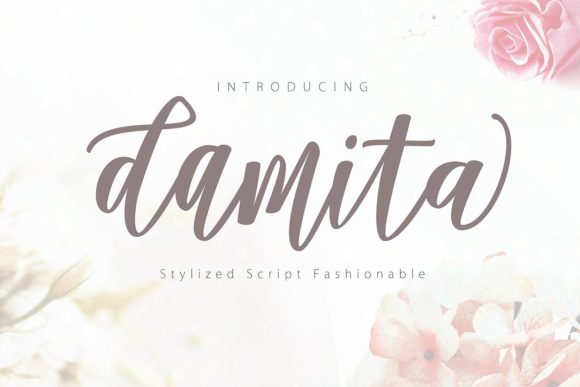
Damita Script: The Modern Script Font for Creative Brands
Bridging Elegance and Contemporary Style
Finding a typeface that balances artistic flair with professional utility is a common challenge in modern typography. Too often, script fonts lean too heavily into vintage nostalgia or feel too casual for serious brand identity work. Damita Script enters the conversation as a distinct solution. It is a premium font that captures the fluidity of handwriting while maintaining a uniform baseline and consistent weight. This is not your grandmother’s calligraphy; it is a contemporary display font designed to feel fresh, relevant, and versatile. The visual personality of Damita Script is defined by its smooth curves and balanced kerning, allowing it to stand out without overwhelming the viewer.
For designers and entrepreneurs, the appeal lies in its adaptability. Whether you are working on a high-end logo design or a quick social media graphic, this typeface provides a cohesive look. It bridges the gap between the warmth of a handwritten font and the structure required for commercial typography. When you look at the letterforms, you see a deliberate effort to avoid the chaotic baseline often found in rustic fonts. Instead, Damita offers a polished aesthetic that speaks to quality and attention to detail.
Where Damita Script Excels
Understanding where a creative font fits into your workflow is just as important as the design itself. Damita Script is particularly effective in projects where emotional connection and brand perception are key. Here are some practical applications where this typeface shines:
- Packaging Design: For products aiming for a boutique or artisanal feel, such as cosmetics, specialty foods, or handmade goods, Damita Script adds an immediate touch of sophistication. It suggests that the product inside is crafted with care.
- Wedding Stationery and Invitations: The artistic feel of the font makes it ideal for event invitations. It communicates elegance without being stuffy, making it perfect for modern weddings and upscale gatherings.
- Logo Design and Brand Identity: If your brand strategy revolves around approachability, creativity, or luxury, this font can serve as a primary wordmark. It helps in building a brand identity that feels personal yet professional.
- Editorial Design: In magazines or blog headers, Damita Script works beautifully for pull quotes or feature titles. It breaks up the monotony of body text and draws the reader's eye to key messages.
- Social Media Graphics: On platforms like Instagram or Pinterest, visual hierarchy is crucial. Using this display font for headlines helps your content stop the scroll, offering a clean and artistic alternative to standard system fonts.
The Technical Edge: PUA Encoding and Usability
A major hurdle with many artistic fonts is accessibility. You might find a beautiful typeface online, only to discover that the special swashes and ligatures are locked away, requiring advanced design software to access them. Damita Script solves this problem through PUA encoding (Private Use Areas). This technical feature is a game-changer for small business owners and hobbyists who may not be experts in Adobe Illustrator or Photoshop.
Because it is PUA encoded, every glyph, alternate character, and decorative swash is fully accessible. This means you can copy and paste these special characters directly from a character map into platforms like Canva, Cricut Design Space, or even basic text editors. This level of accessibility ensures that you can fully utilize the font’s potential right out of the box. You can easily add a tail to the end of a word or swap out a capital letter for a more ornate version to customize your typography.
Strategic Font Pairing and Hierarchy
No font is an island, and Damita Script performs best when paired correctly. As a script font, it carries a lot of personality. If you pair it with another highly stylized font, the result can be visual noise. The key to effective font pairing is contrast.
Consider pairing Damita Script with a clean, geometric sans serif font. The simplicity of the sans serif will allow the script to take center stage for headlines, while the sans serif handles the legible body copy. Alternatively, pairing it with a traditional serif font can create a classic, timeless look suitable for editorial design or formal branding. When evaluating your project fit, test how the x-height of Damita aligns with your secondary typeface. You want a relationship where the script feels like the "voice" of the design, while the supporting font provides the "structure."
Readability is another practical factor. While Damita Script is designed for legibility, it is still a display typeface. Avoid using it for long paragraphs of small text, as this can strain the reader's eyes. It is best reserved for short bursts of text—headlines, sub-headers, and call-to-action buttons. By respecting the font's intended use, you ensure that your design remains functional. Ultimately, Damita Script is more than just a set of characters; it is a tool for storytelling, allowing you to craft visuals that resonate with your audience on a human level.